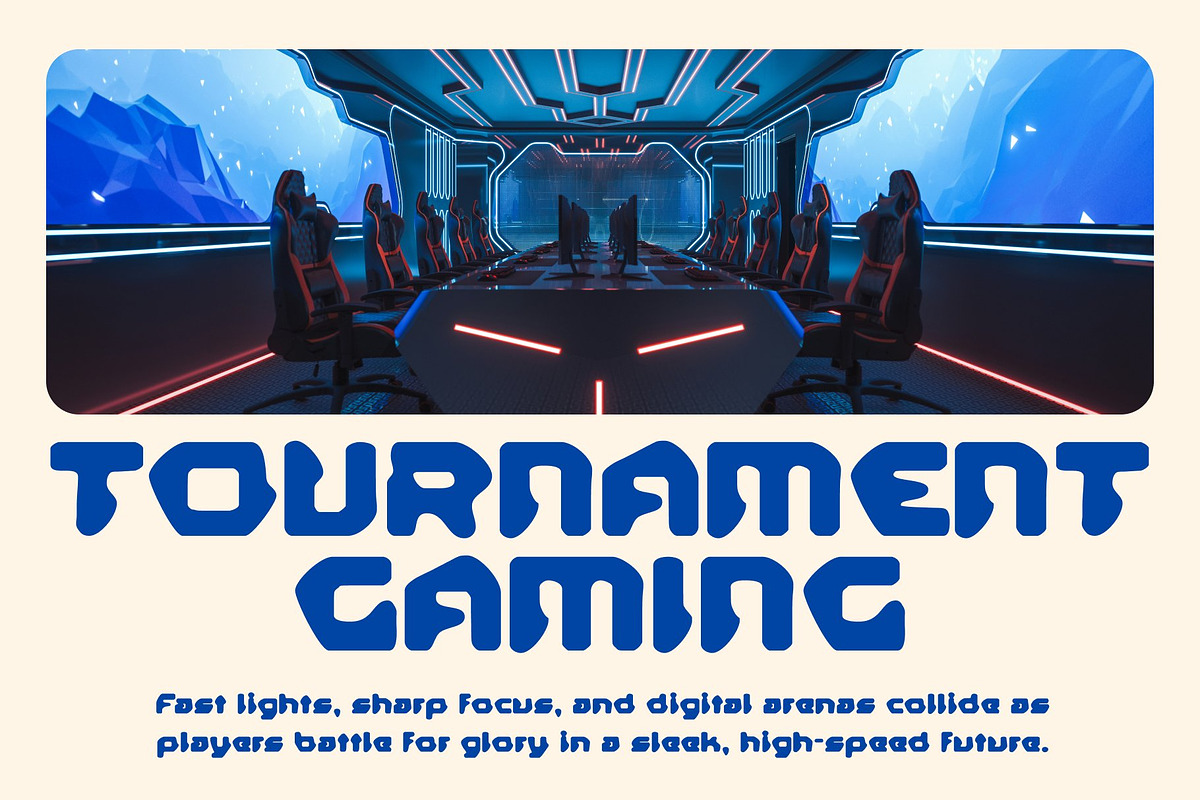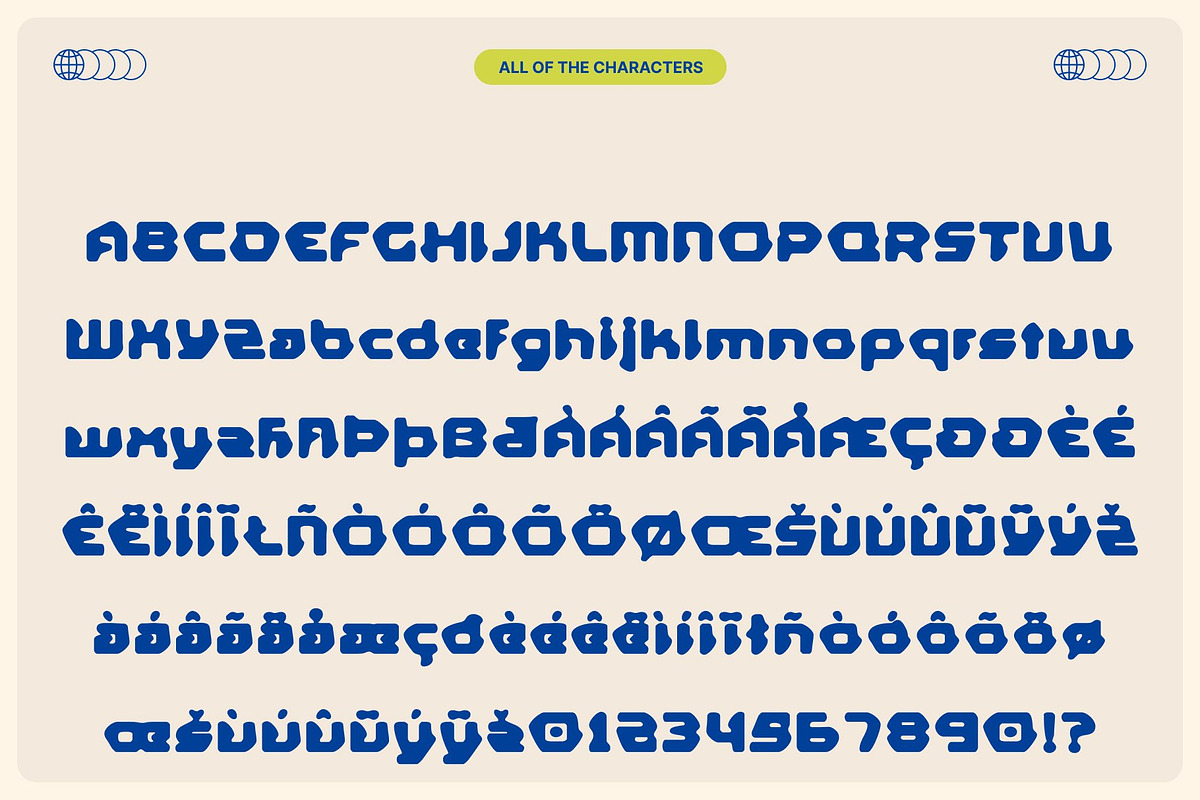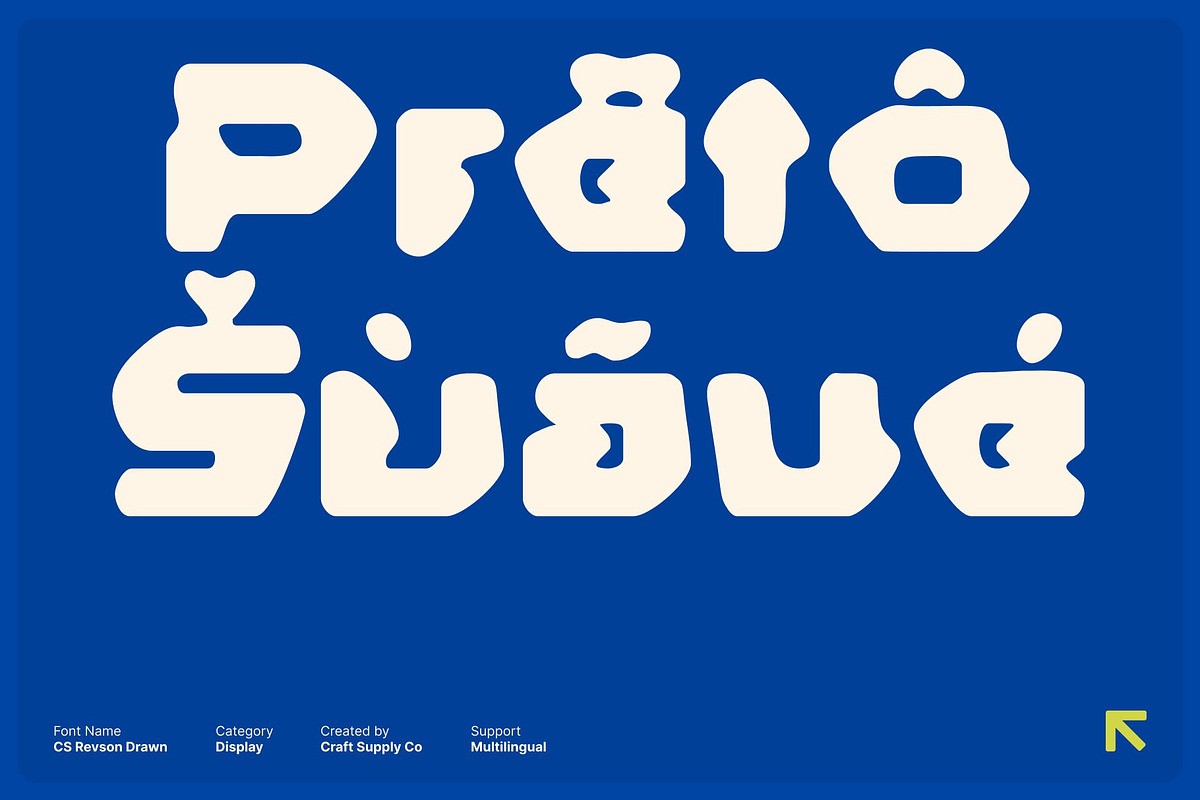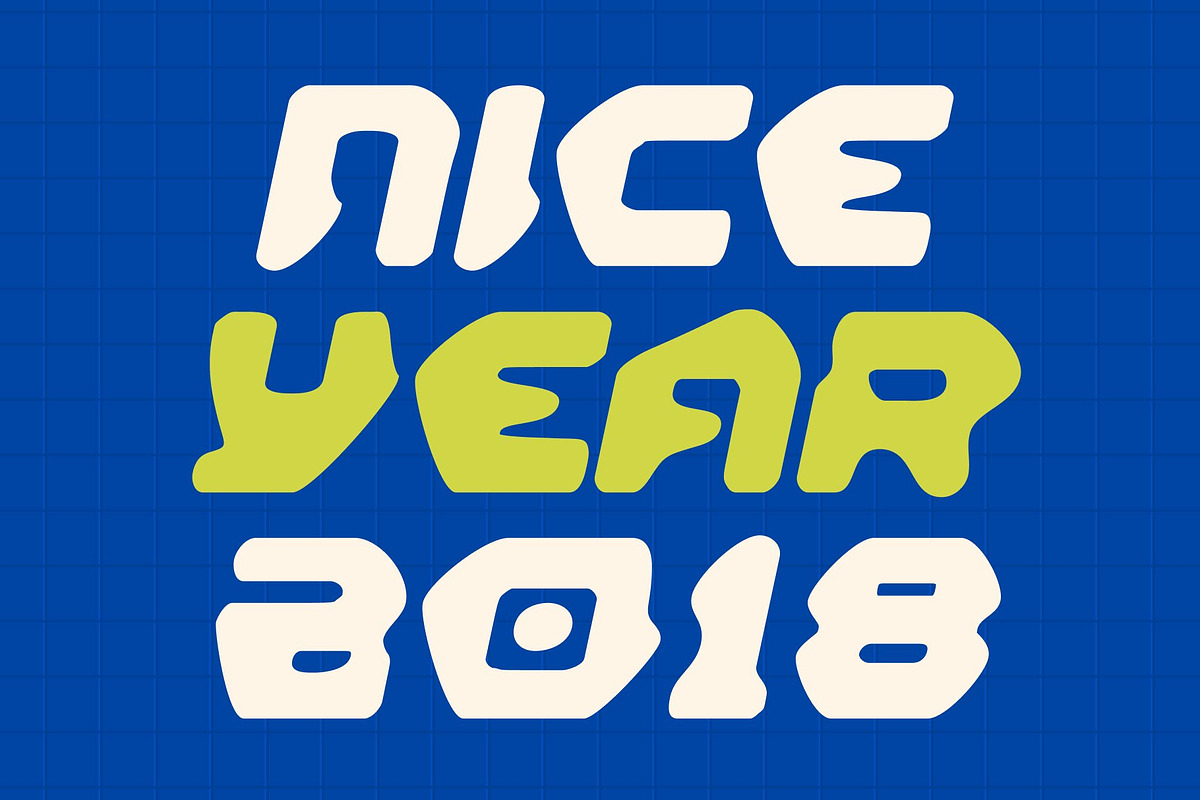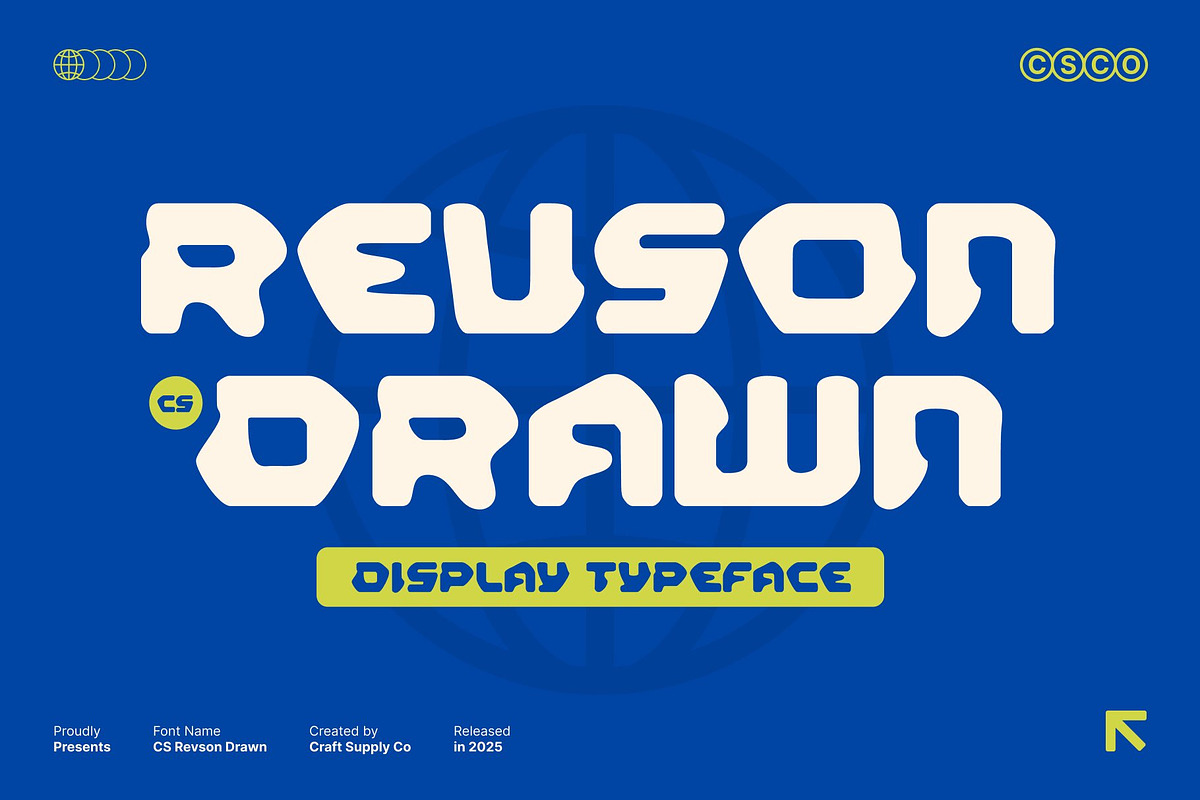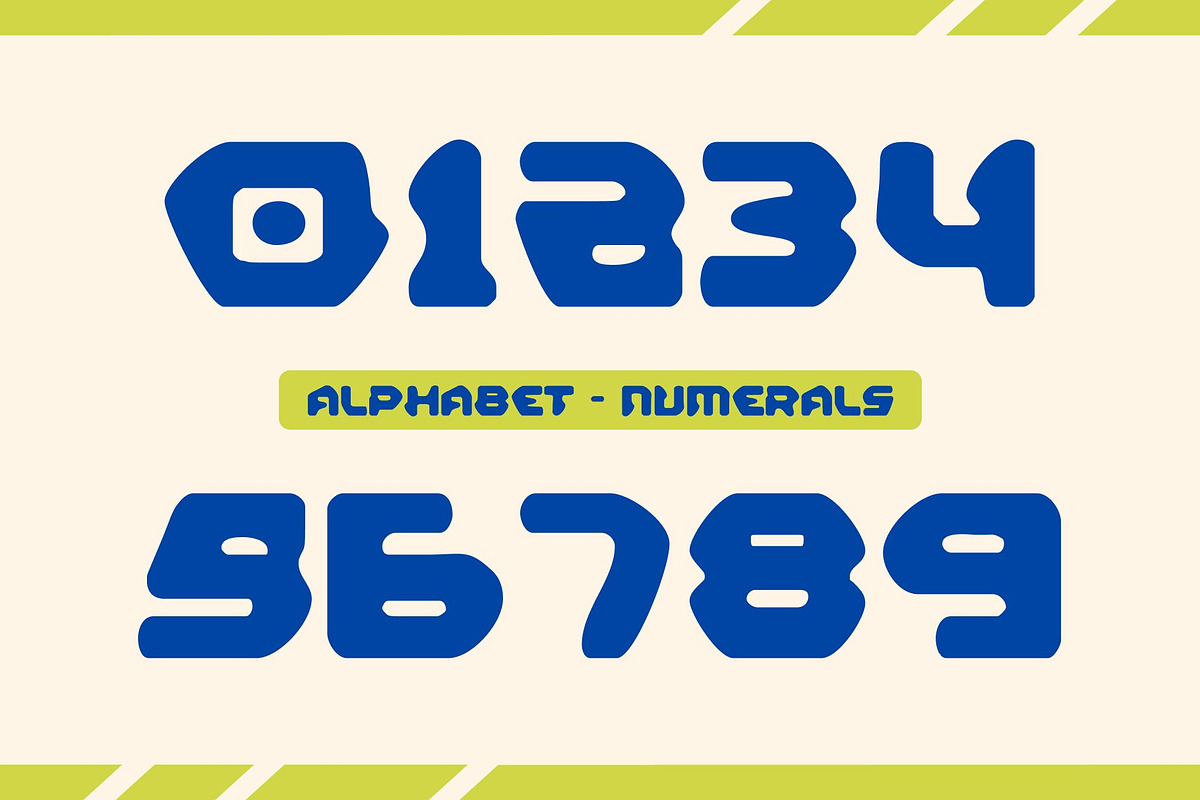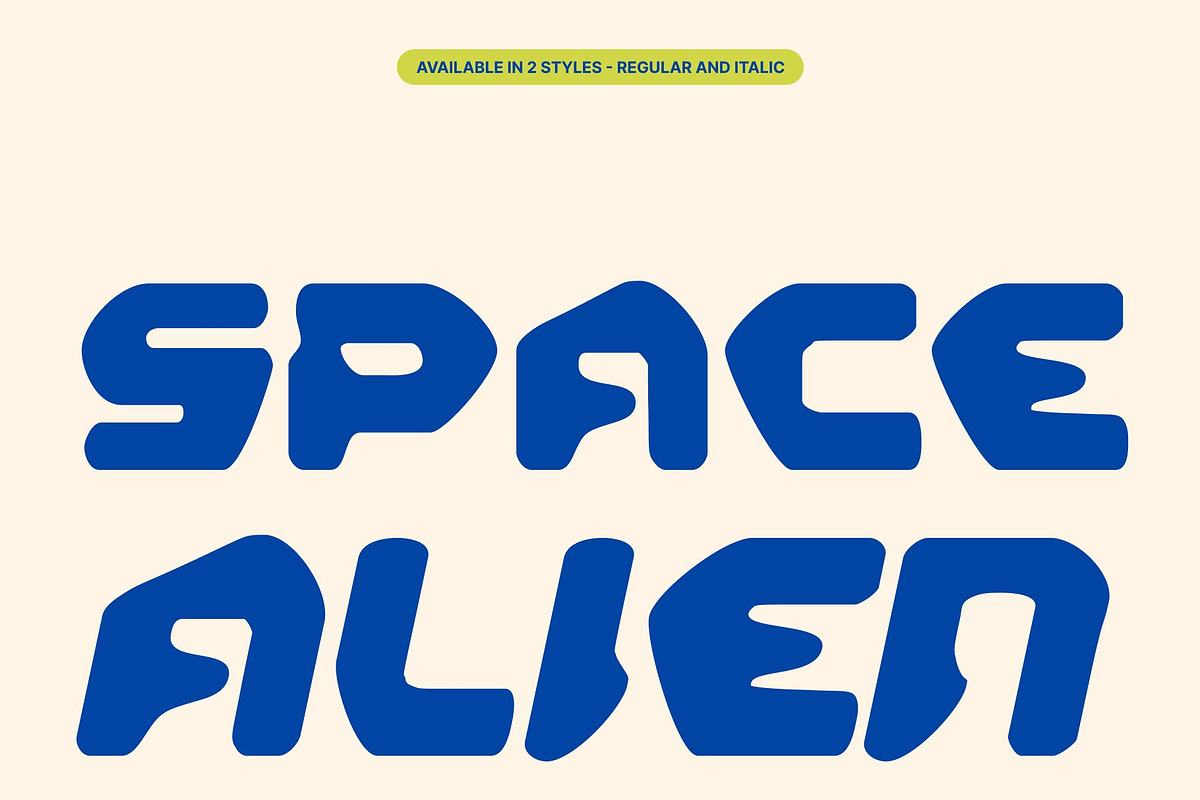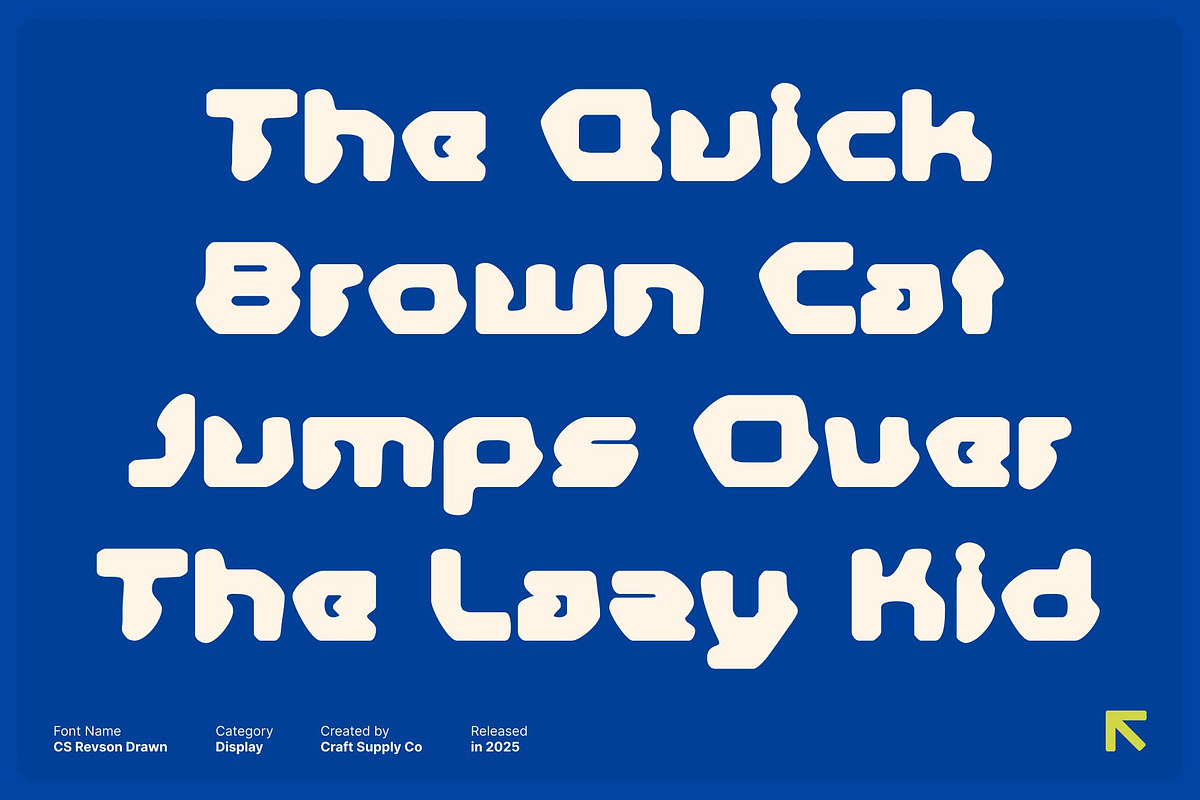
CS Revson Drawn
CS Revson Drawn – Futuristic Display Font with Techno Edge
Bold Impact with Hand-Drawn Strength This is a futuristic display font built to command attention. Its bold, powerful letterforms create an immediate visual impact, while the subtle hand-drawn texture adds character and individuality. This combination results in a typeface that feels strong, expressive, and perfectly suited for forward-looking design concepts.
Techno Structure with Expressive Detail Defined by clean lines, sharp angles, and techno-inspired geometry, this font delivers a distinctly modern aesthetic. The drawn effect softens the rigid structure just enough to add depth and personality, balancing futuristic precision with an organic, human touch. This makes the font visually striking without sacrificing readability.
Ideal for Games, Sci-Fi, and Branding This font excels in projects that demand a bold futuristic identity. From sci-fi game titles and digital interfaces to high-tech branding, posters, and book covers, it creates a strong, immersive atmosphere. Its bold construction ensures clarity while reinforcing a dystopian or techno-forward mood.
A Typeface Built for the Future More than just a font, this font is a creative tool for designers shaping futuristic narratives. With its fusion of techno structure, bold presence, and handcrafted texture, it adapts seamlessly across print and digital media perfect for projects that aim to express innovation, imagination, and the vision of tomorrow.